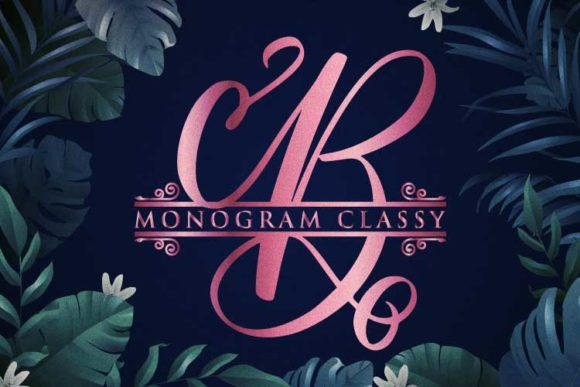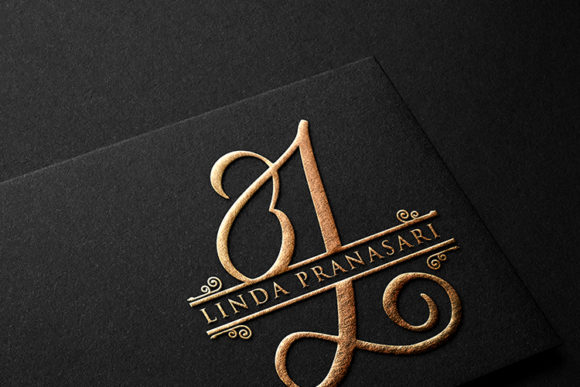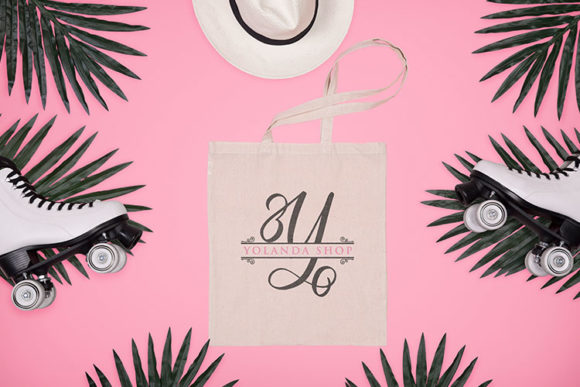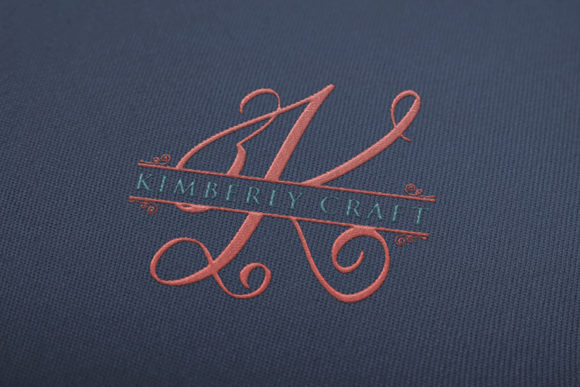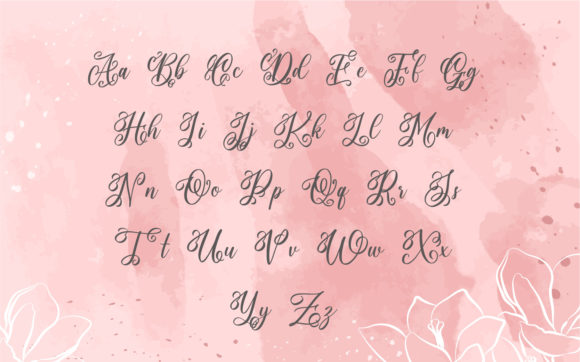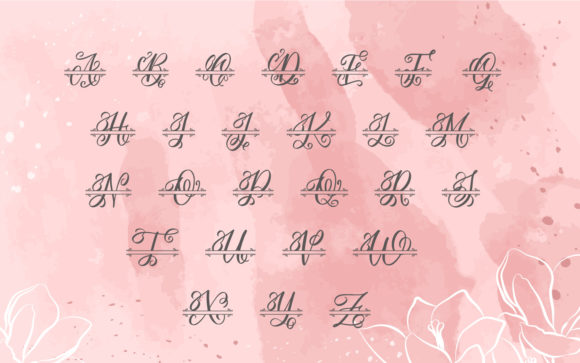
Monogram Classy Font
About Monogram Classy Font
“Monogram Classy” sounds like a stunning handwritten font that exudes elegance and delicacy. Here are some key features that make it stand out:
Elegant Handwritten Style: “Monogram Classy” is designed with an elegant and sophisticated handwritten style, adding a touch of class to any design project.
Versatility: The font’s versatility allows it to be used in a wide range of design applications. From wedding invitations and monograms to logos, branding materials, and more, “Monogram Classy” can adapt to various design concepts.
Delicate Design: The font’s delicate and refined design makes it suitable for projects that require a soft and graceful touch.
Monogram Friendly: As the name suggests, “Monogram Classy” is likely to be well-suited for creating monograms, initials, and personalized designs. Its elegant characters are perfect for adding a personal and luxurious touch to monogram designs.
Spectacular Designs: The font has the ability to enhance designs and make them stand out, catching the eye of viewers and leaving a lasting impression.
Wedding Invitations: With its elegant and delicate appearance, “Monogram Classy” is ideal for crafting stunning and romantic wedding invitations.
Branding Materials: The font can be used for branding purposes, adding a touch of sophistication to logos, business cards, and other branding materials.
Smooth Lines and Gorgeous Glyphs: The font’s smooth lines and well-crafted glyphs contribute to its overall elegance and beauty.
Sophisticated Typography: Designers can utilize “Monogram Classy” for sophisticated typography, elevating the visual appeal of any typographic composition.
Stationery Art: The font can be used to create beautiful and artistic stationary designs, such as letterheads, note cards, and more.
Social Media Graphics: “Monogram Classy” can be incorporated into social media graphics, helping brands maintain a consistent and elegant look across their online presence.
Professional Projects: The font’s elegant style also makes it suitable for professional projects, such as presentations, portfolios, and business materials.
Timeless Appeal: “Monogram Classy” is likely to have a timeless appeal, making it a valuable asset for designers seeking fonts that stand the test of time.
Overall, “Monogram Classy” appears to be a versatile and sophisticated handwritten font that offers a wide range of design possibilities. Its elegant and delicate design makes it a perfect choice for various projects, including wedding invitations, monograms, branding materials, and more. Designers are sure to fall in love with its beautiful and timeless style, using it to create spectacular and visually stunning designs.